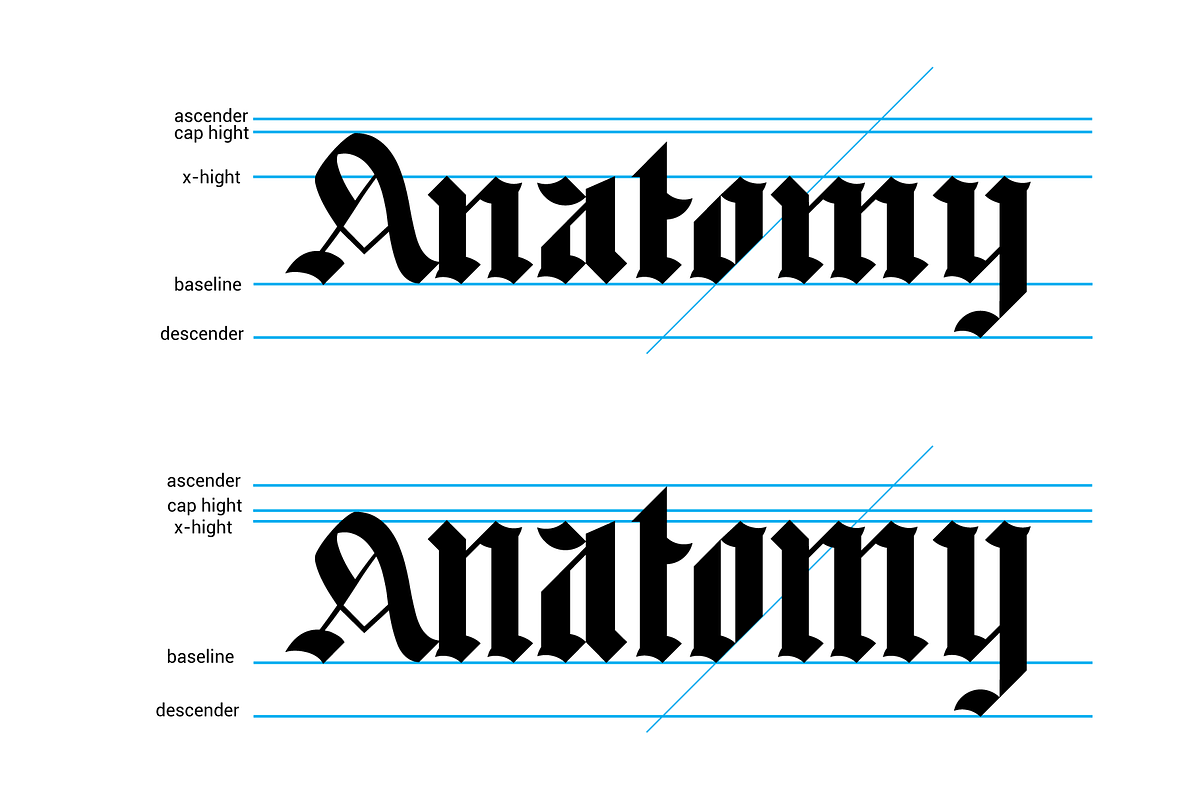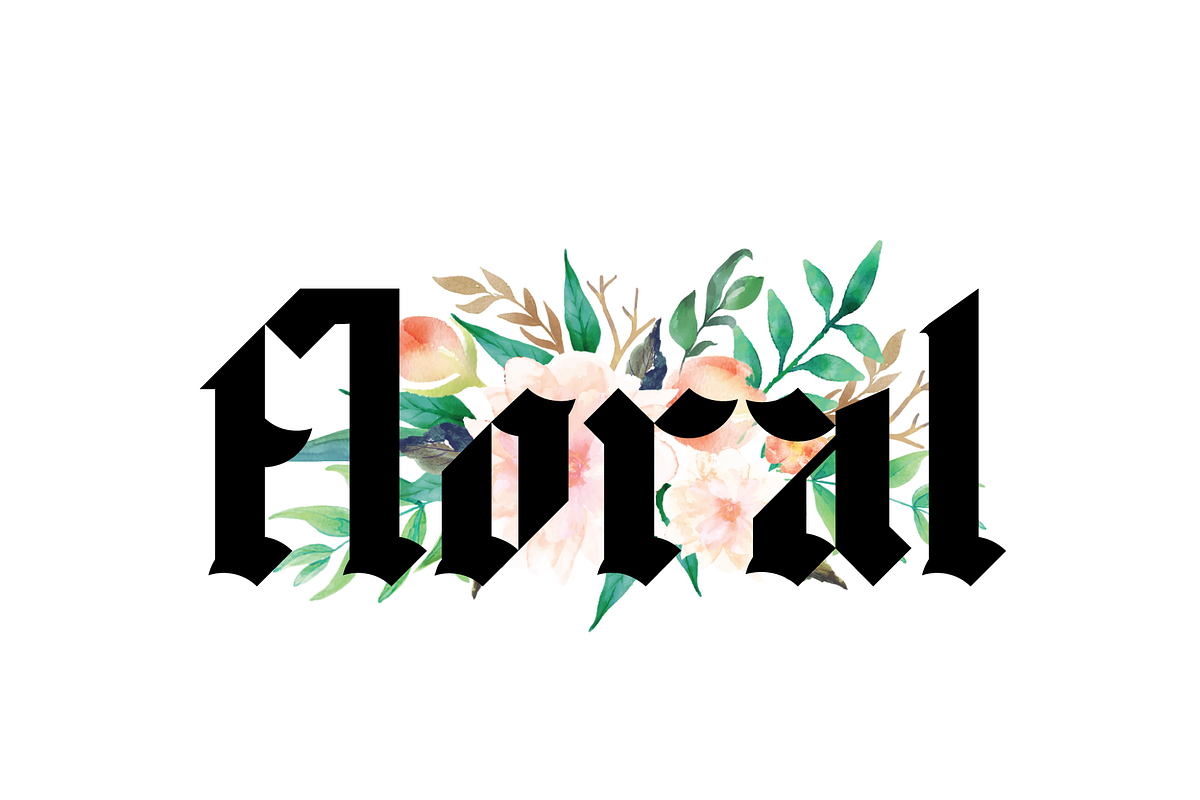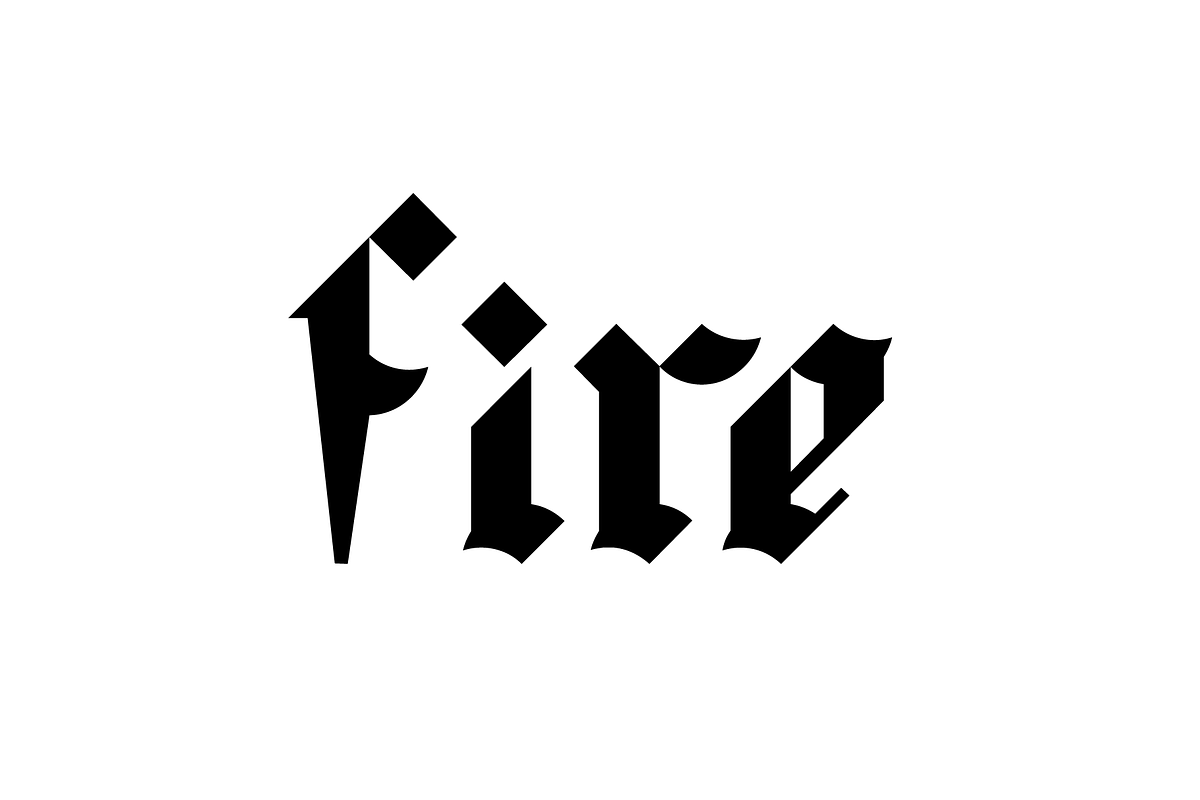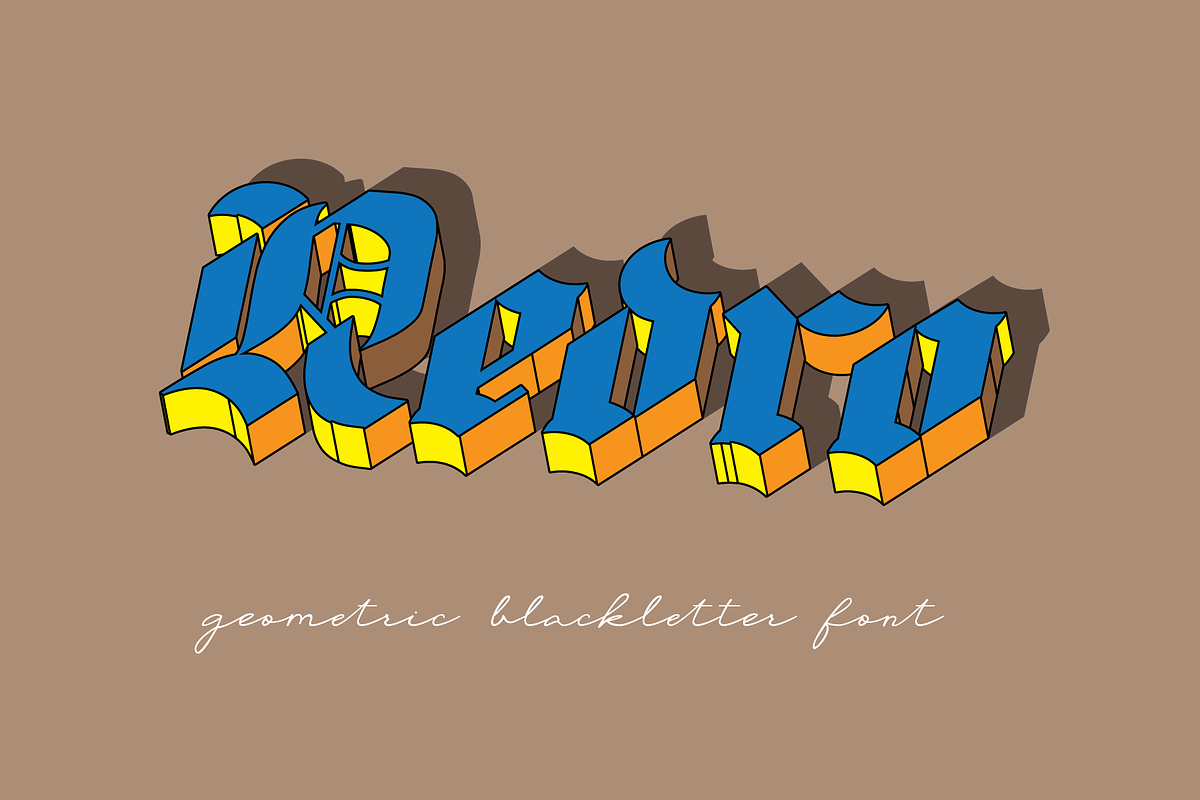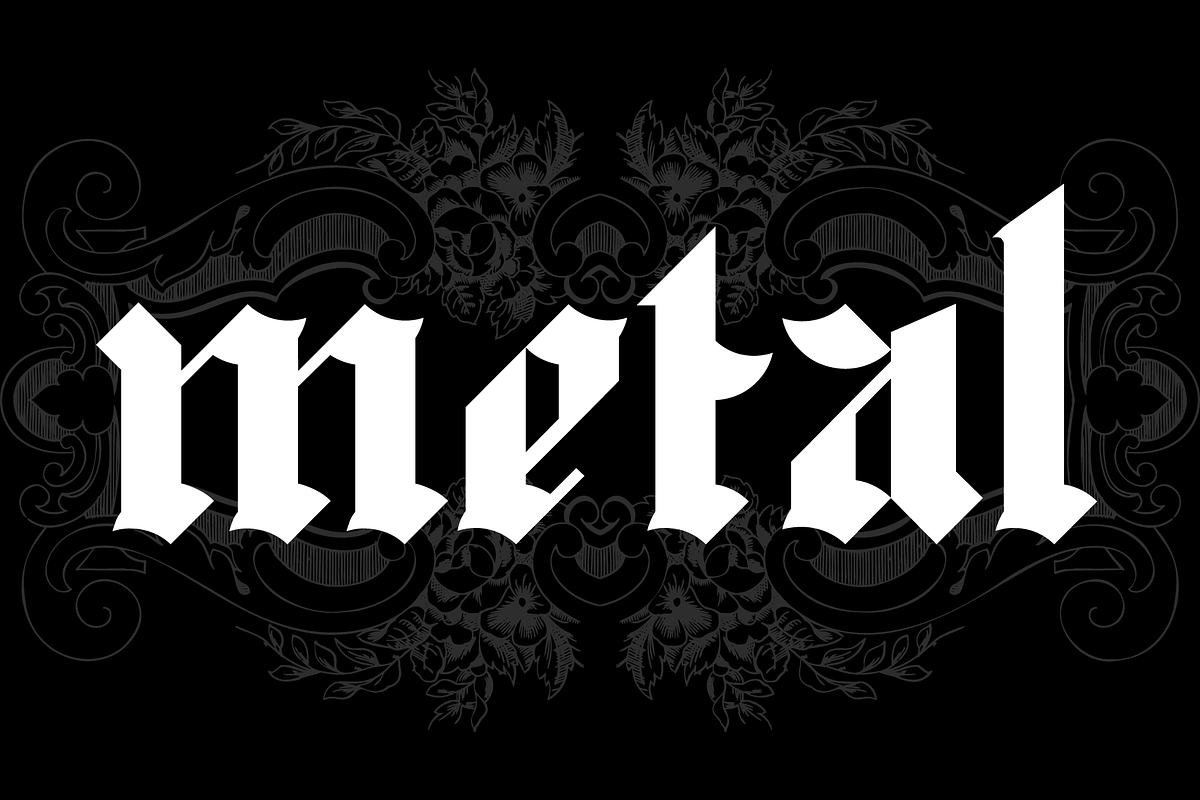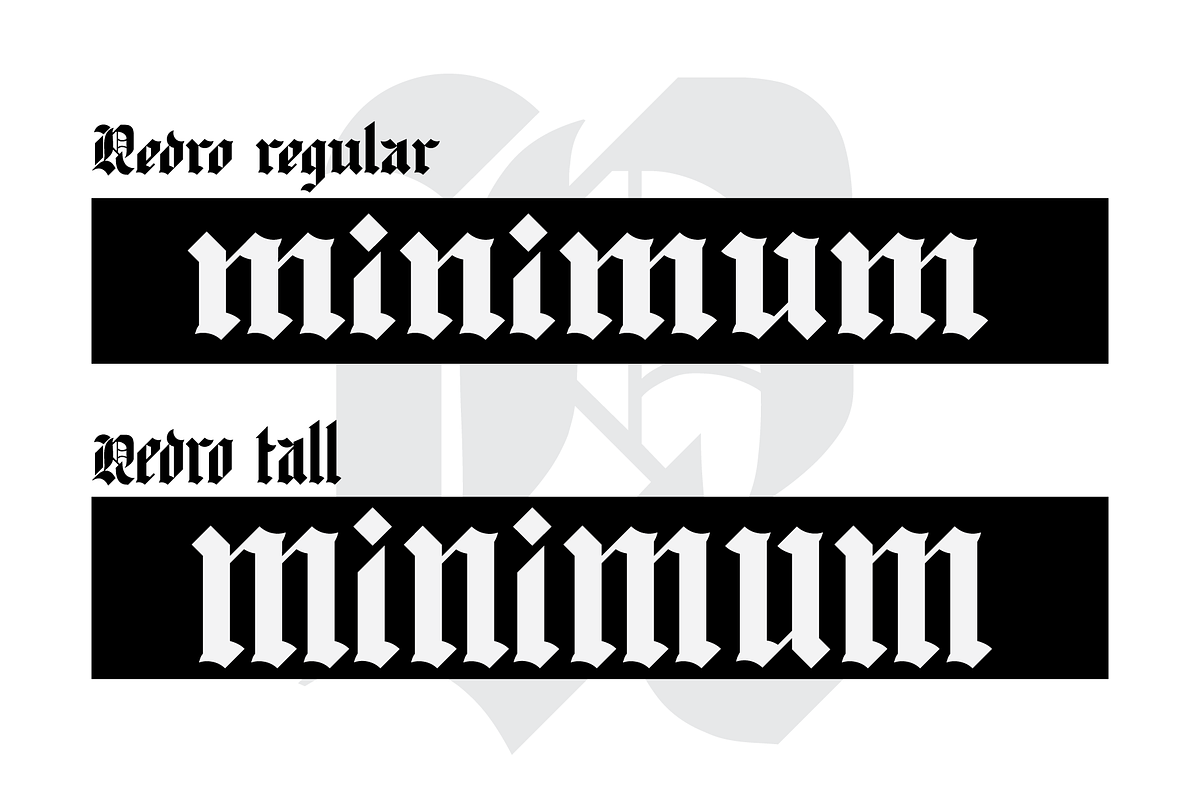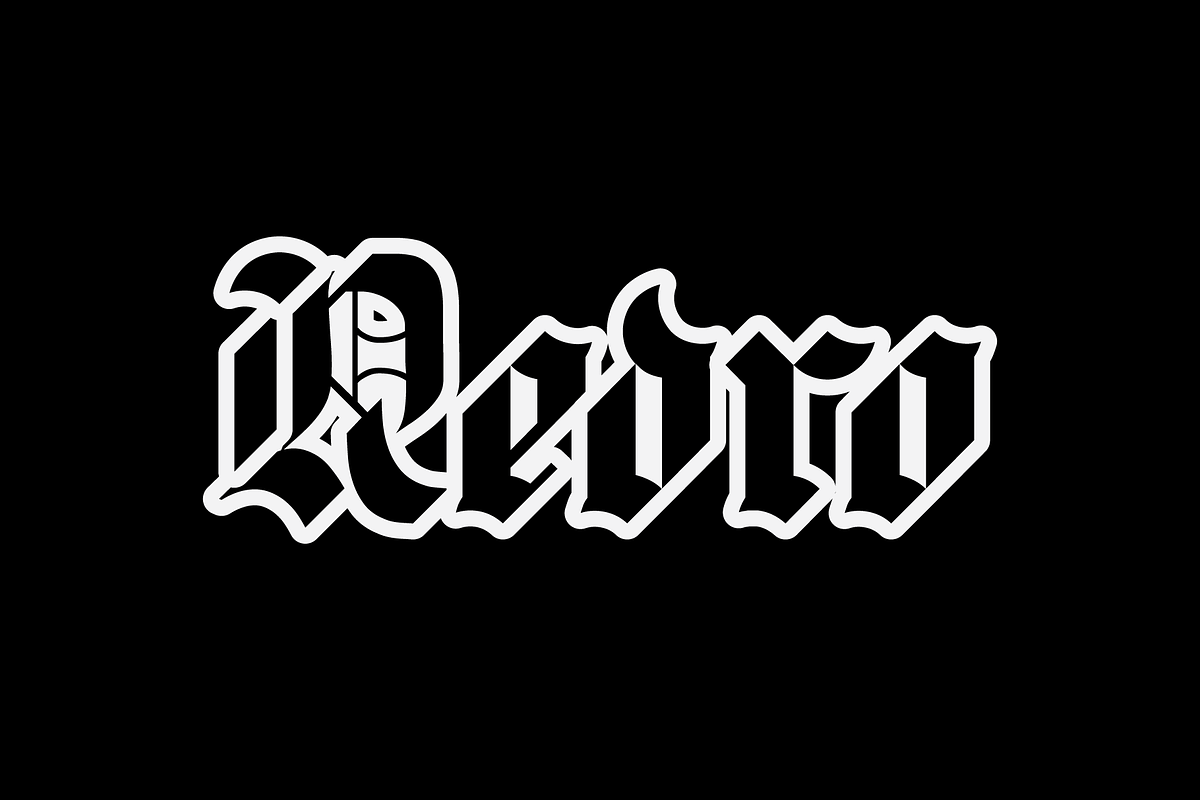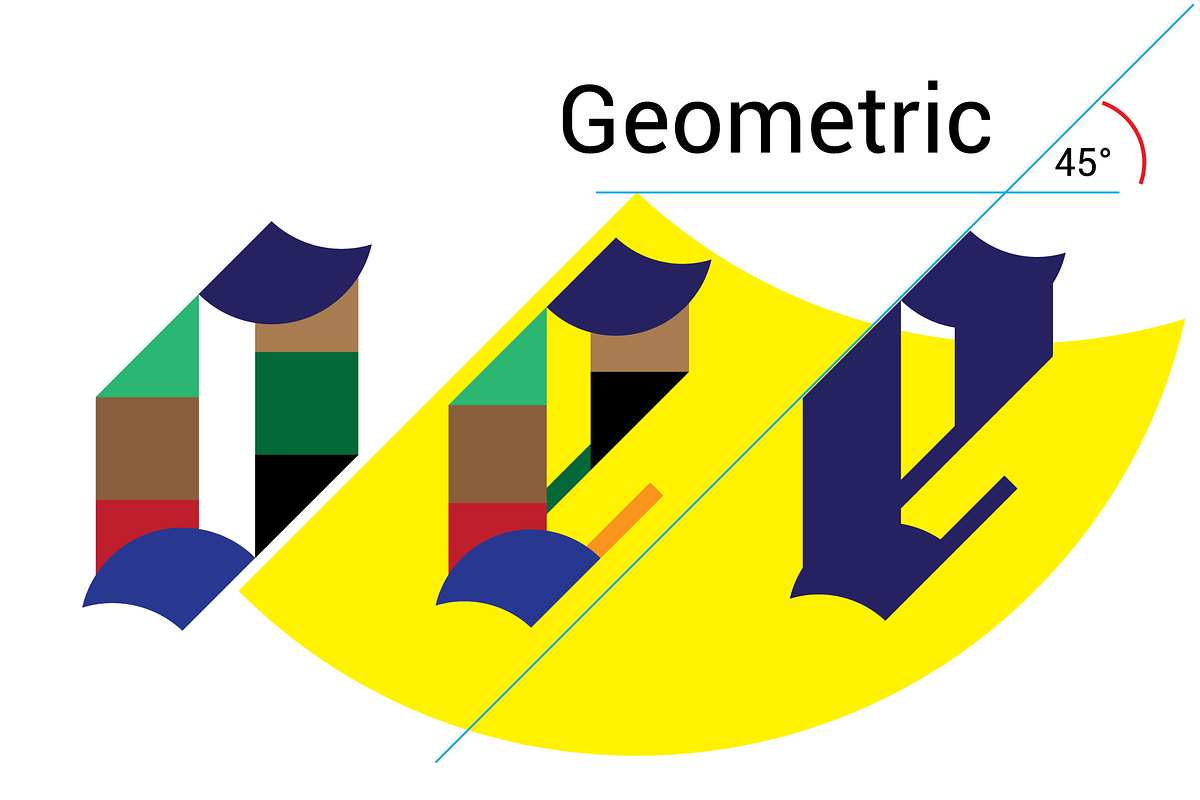
Redro - Geometrical Blackletter
Redro is a unique geometric blackletter font that blends the bold character of traditional Gothic lettering with the clean precision of modern geometric design. Its sharp angles, balanced proportions, and contemporary structure create a distinctive typeface that stands out while remaining highly readable. Redro is perfect for designers who want to combine classic blackletter aesthetics with a fresh, modern style.
Whether you're creating logos, branding, headlines, posters, album covers, apparel designs, product packaging, labels, signage, invitations, wedding stationery, certificates, book covers, social media graphics, or editorial layouts, Redro delivers a striking visual impact. Its strong letterforms make it an excellent choice for premium branding, streetwear, tattoo-inspired artwork, gaming graphics, craft products, and luxury packaging.
Redro includes multilingual support, making it suitable for international projects and a wide variety of creative applications. The font performs beautifully in both print and digital media, offering versatility for display typography and brand identity design. If you're looking for a modern blackletter font with geometric precision, timeless elegance, and bold personality, Redro is the perfect choice to give your designs a powerful and unforgettable look.